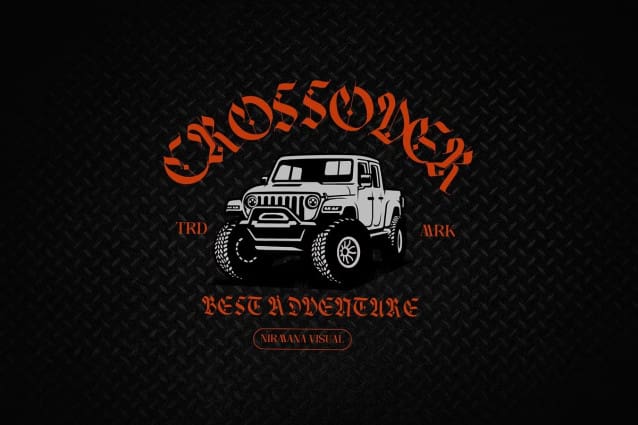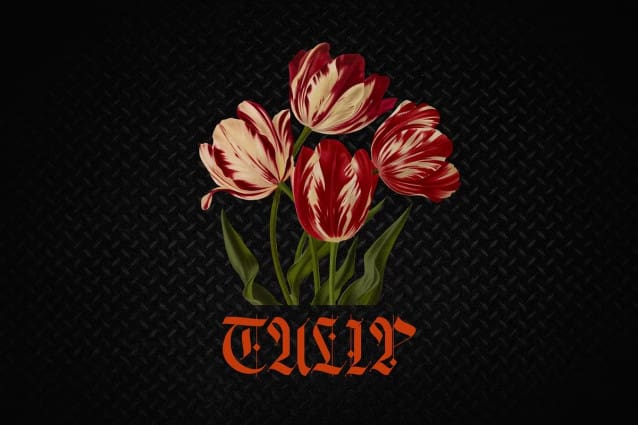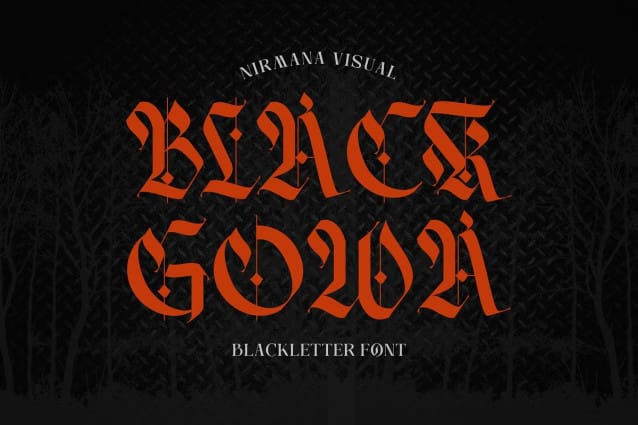
Black Gowa Font
Black Gowa Font offers beautiful typographic harmony for a diversity of design projects, including logos & branding, social media posts, advertisements & product designs.
Classification: Blackletter / Gothic Fonts, Serif Fonts